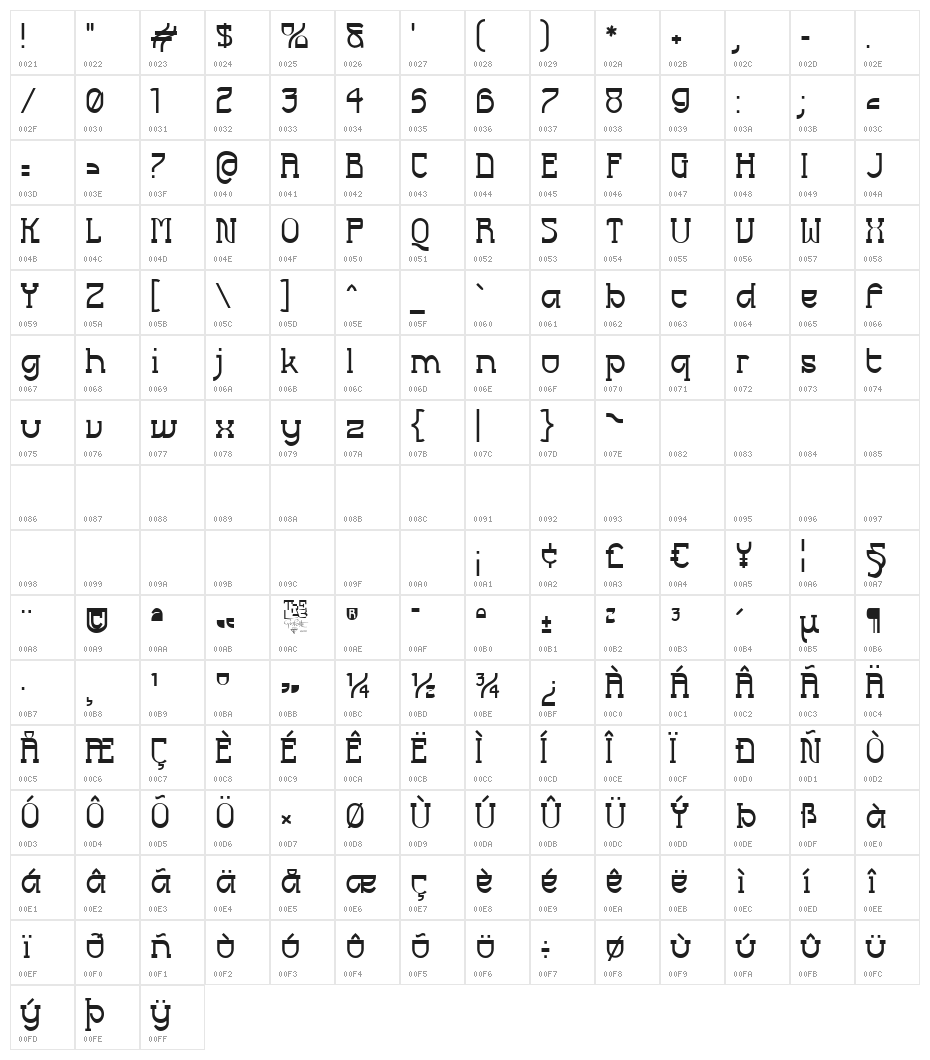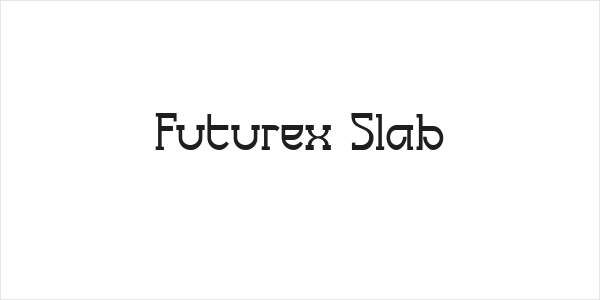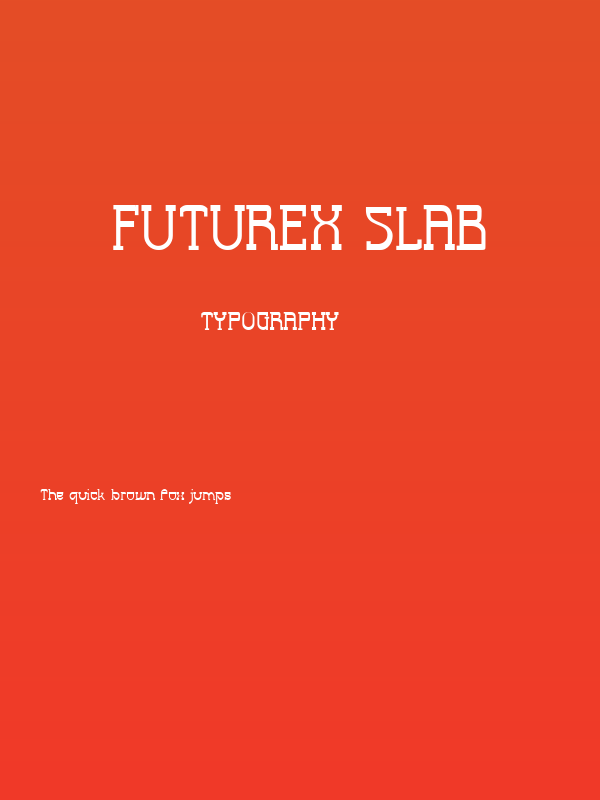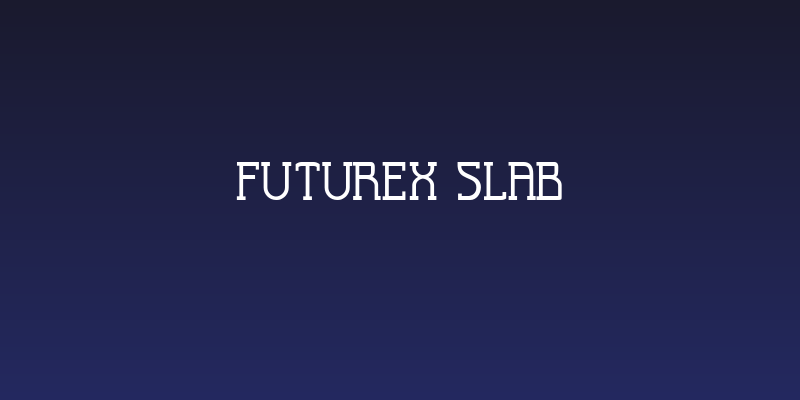
Futurex Slab Font
Futurex Slab Description
This font features a modern slab serif style with a geometric influence, characterized by its bold, block-like serifs and clean lines. The uppercase letters are uniform in height, providing a structured and balanced appearance. The lowercase letters maintain a consistent x-height, contributing to readability. The numerals are distinct and easily legible, with a contemporary design that complements the overall aesthetic. Special characters are well-integrated, maintaining the font's cohesive look. The font's design is both functional and stylish, making it suitable for a variety of applications.
| Proposed Projects | Ideal for branding, headlines, posters, and digital media where a modern yet classic look is desired. |